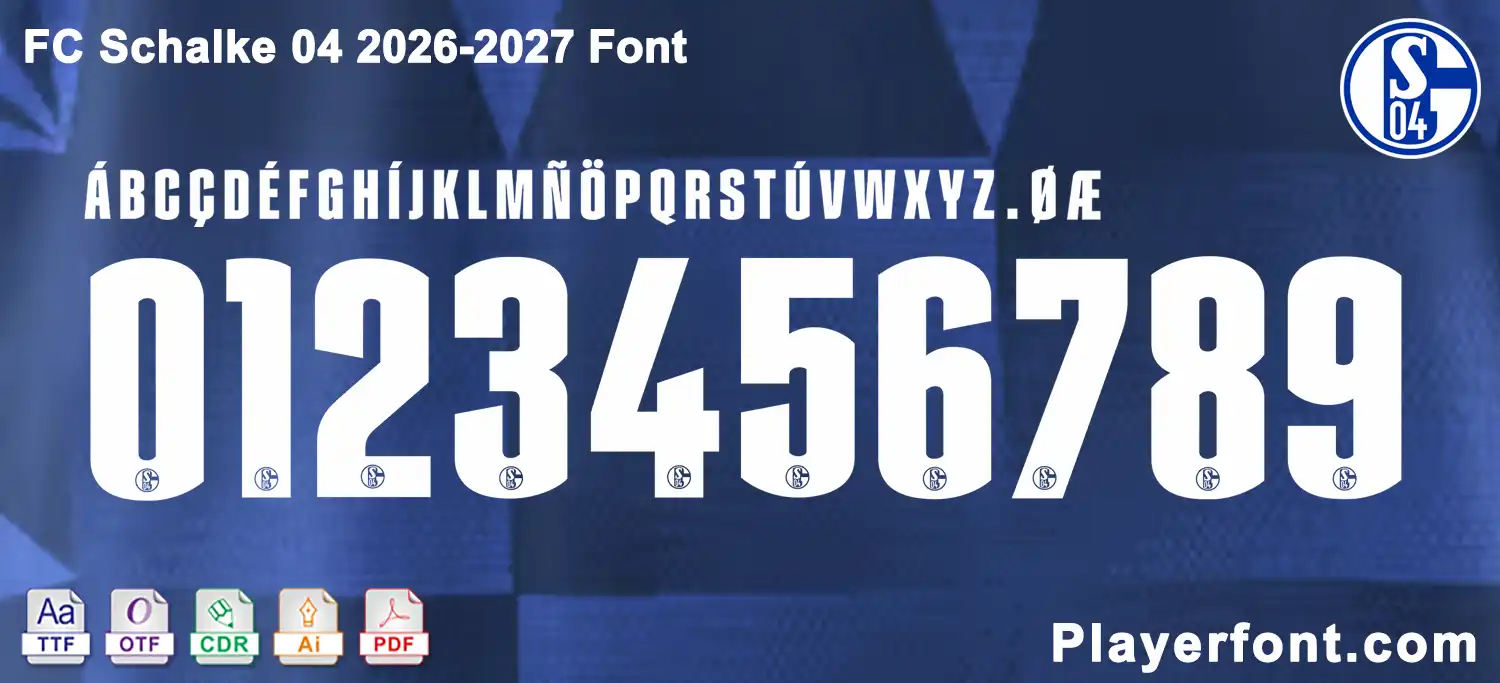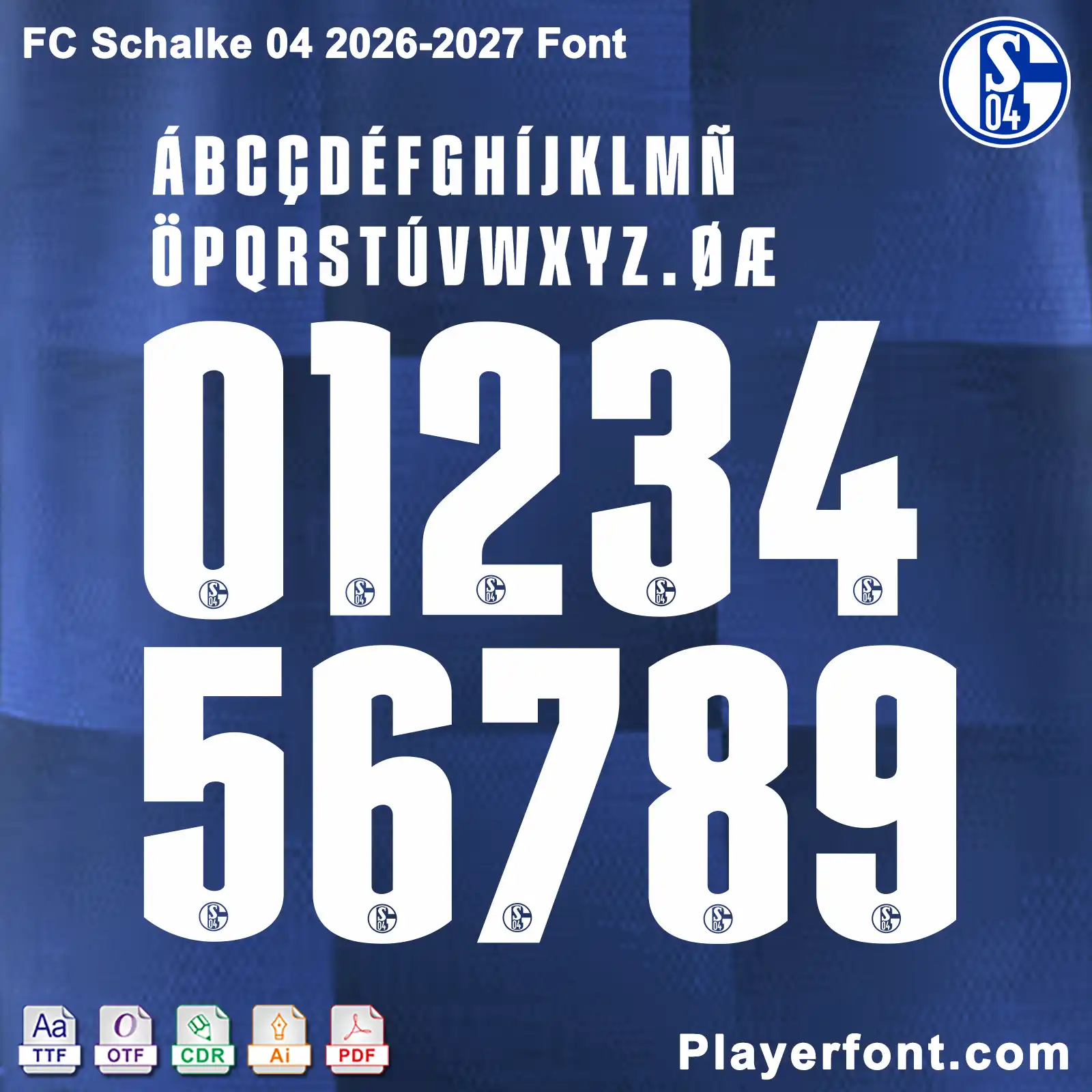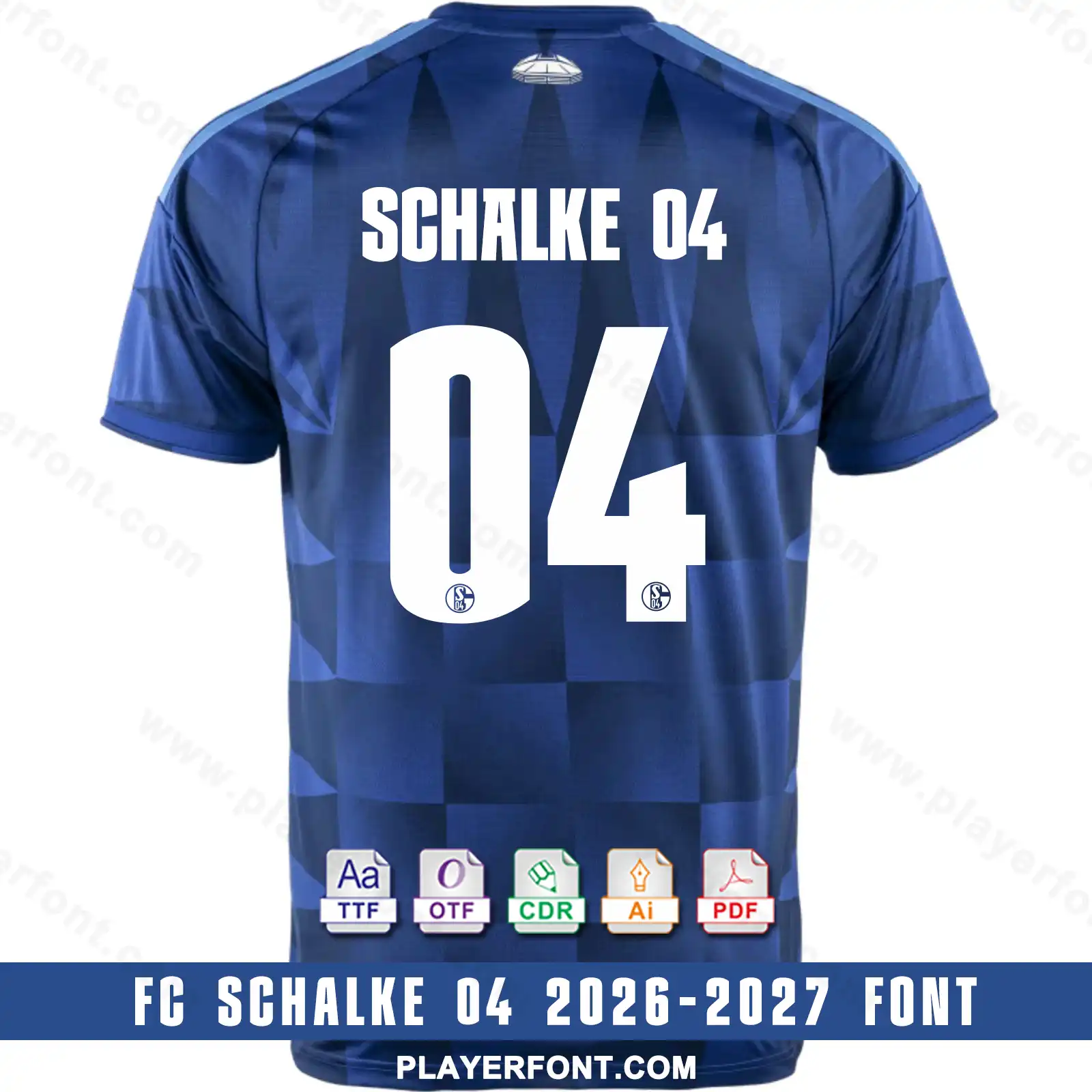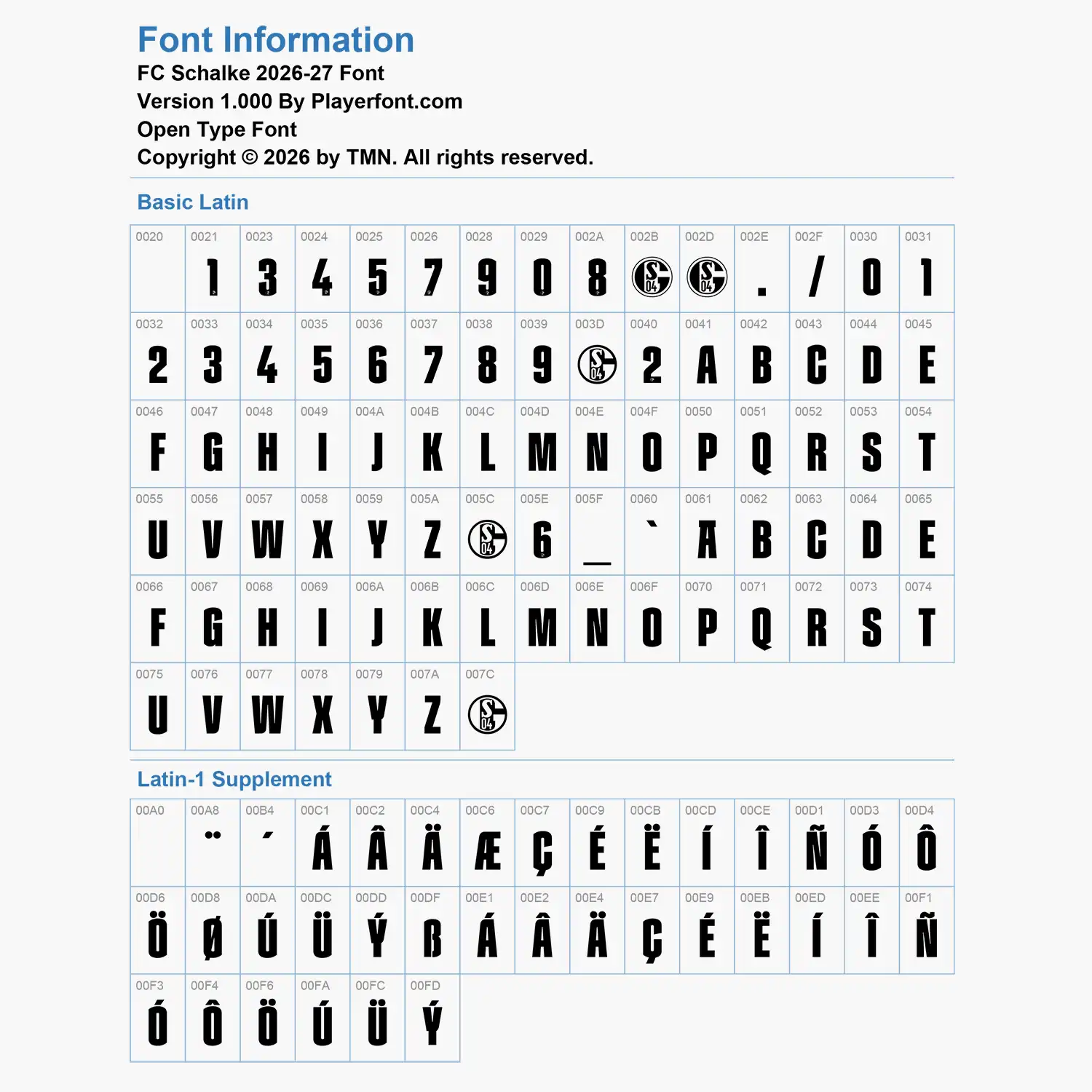
Elevate your sports jersey mockups, football custom graphics, and vector apparel printing projects with the high-quality FC Schalke 04 2026-2027 Font Download. Masterfully engineered by Playerfont.com, this high-performance typography set replicates the official-style numbers and distinct lettering featured on the pitch for FC Schalke 04.
Key Typography Features & Character List:
This typography pack is fully optimized to support international player rosters and diverse numbering layouts:
- Bold Condensed Block Layout: Contains a tall, powerful uppercase character set with geometric cuts, numbers (0-9), hyphens, slashes, and periods.
- Advanced International Accent Support: Includes an expansive set of diacritics spanning Latin-1 Supplement (such as Á, Â, Ä, Æ, Ç, É, Ë, Í, Ñ, Ó, Ö, Ø, Ú, Ü, and Ý) ensuring flawless rendering for global football stars and German naming requirements.
- Authentic Visual Details: The jersey numbers feature solid white rounded geometric structures with subtle corner notches, embedded with the official circular FC Schalke 04 (S04) crest outline centered at the base of each digit.
| Design Feature | Solid White Tall Block Structure with S04 Crest Base |